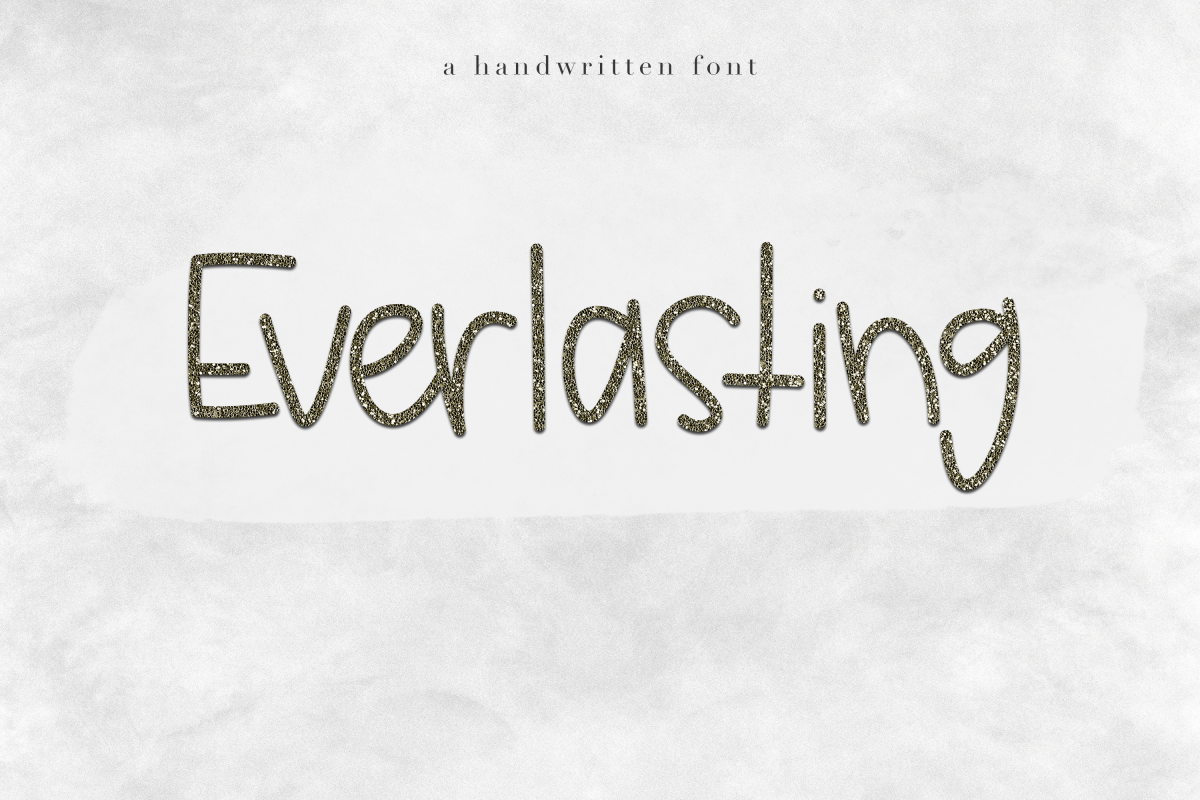
Everlasting - Handwritten Font
Everlasting
Everlasting is a versatile, modern handwritten font.
The letters are big, bold and unique!
This font is perfect for quotes, headings, blogs, logos, invitations and more!
This font *does* include accent characters.